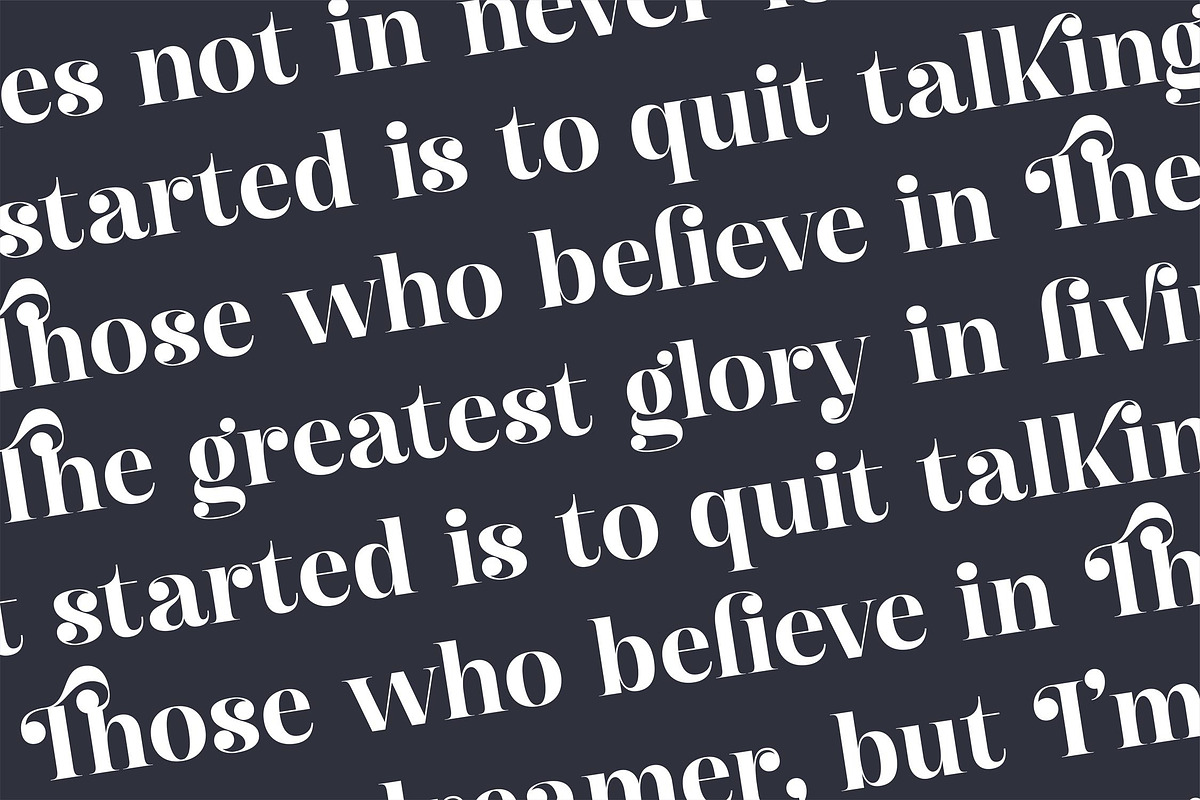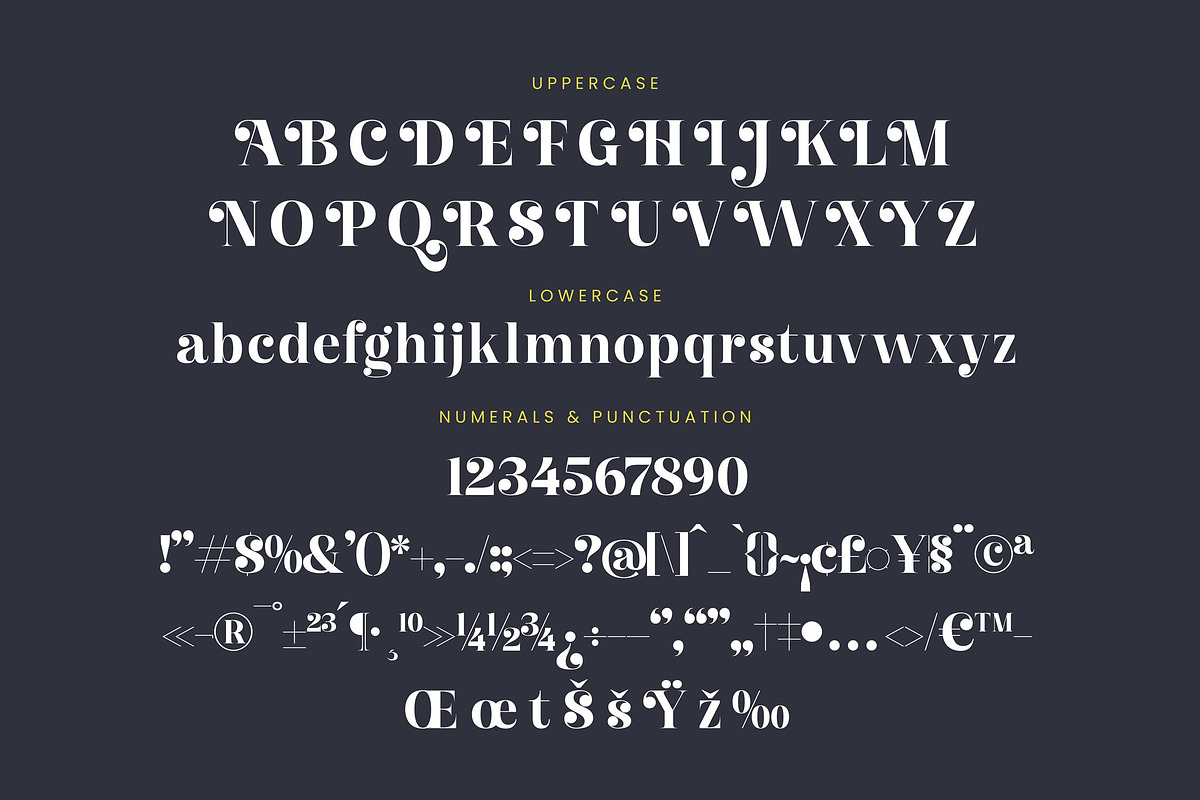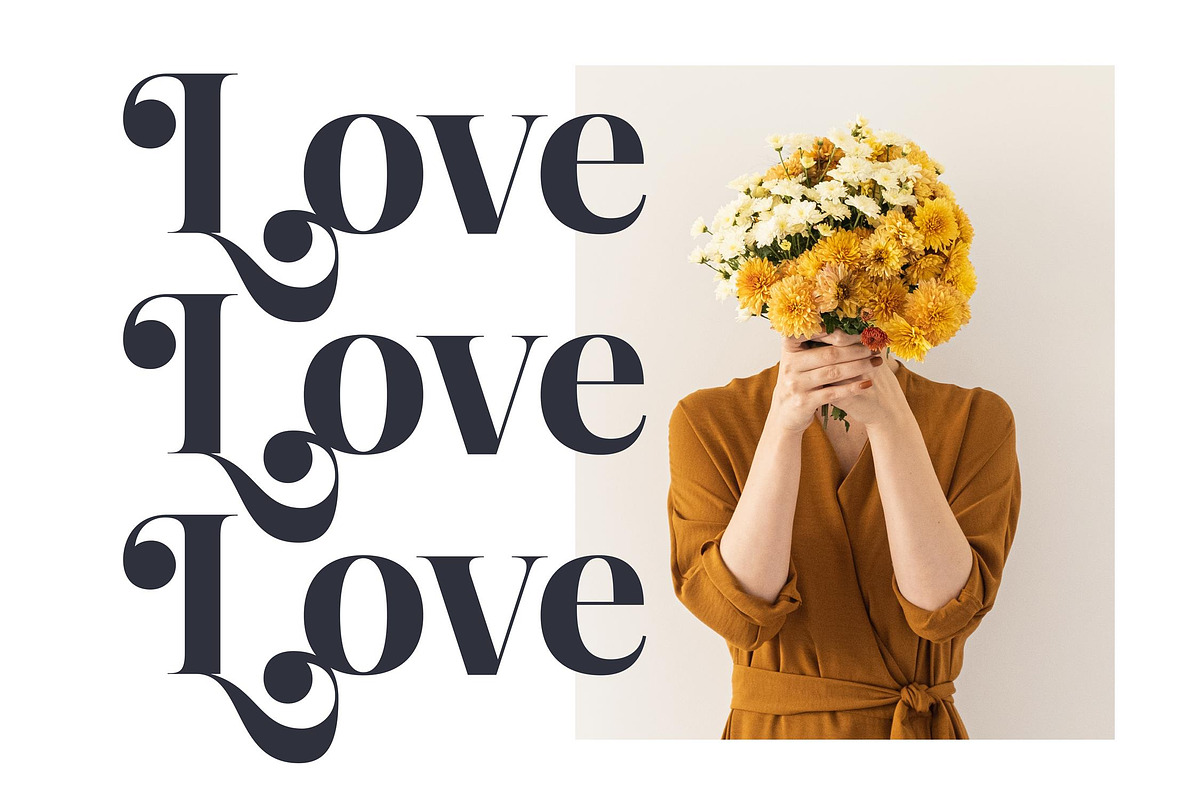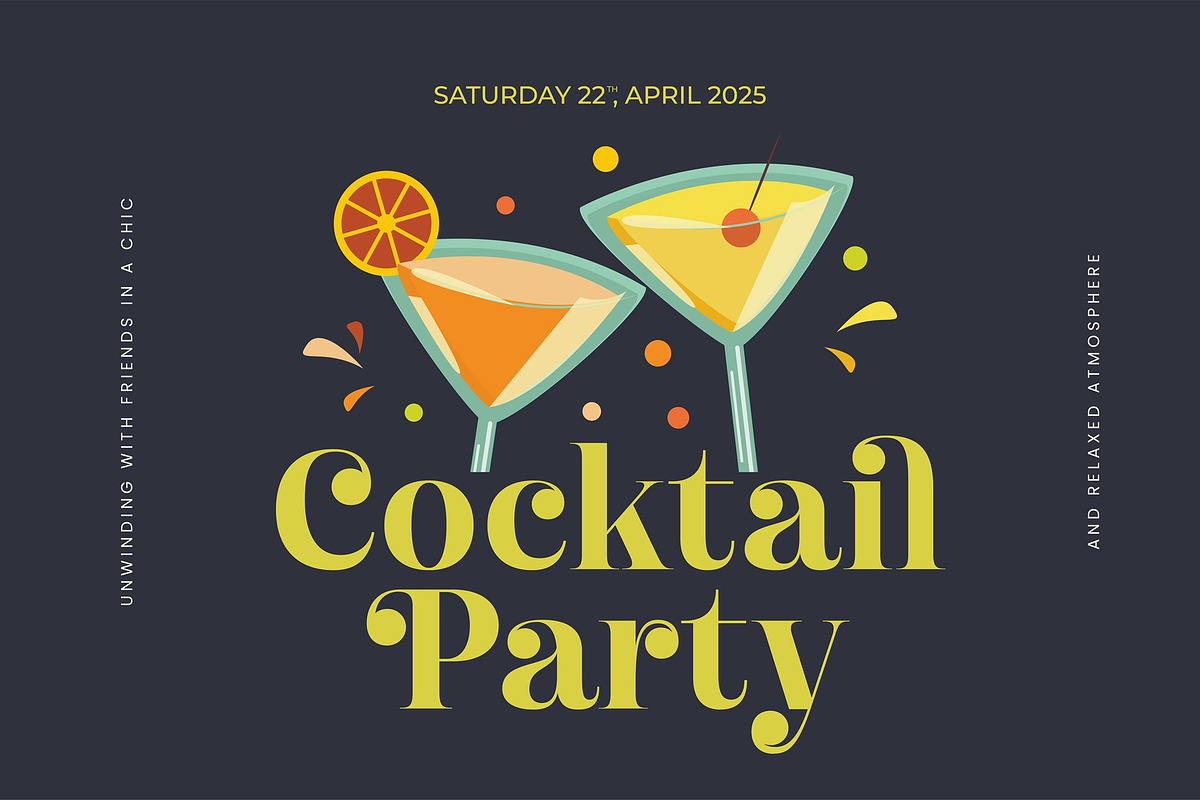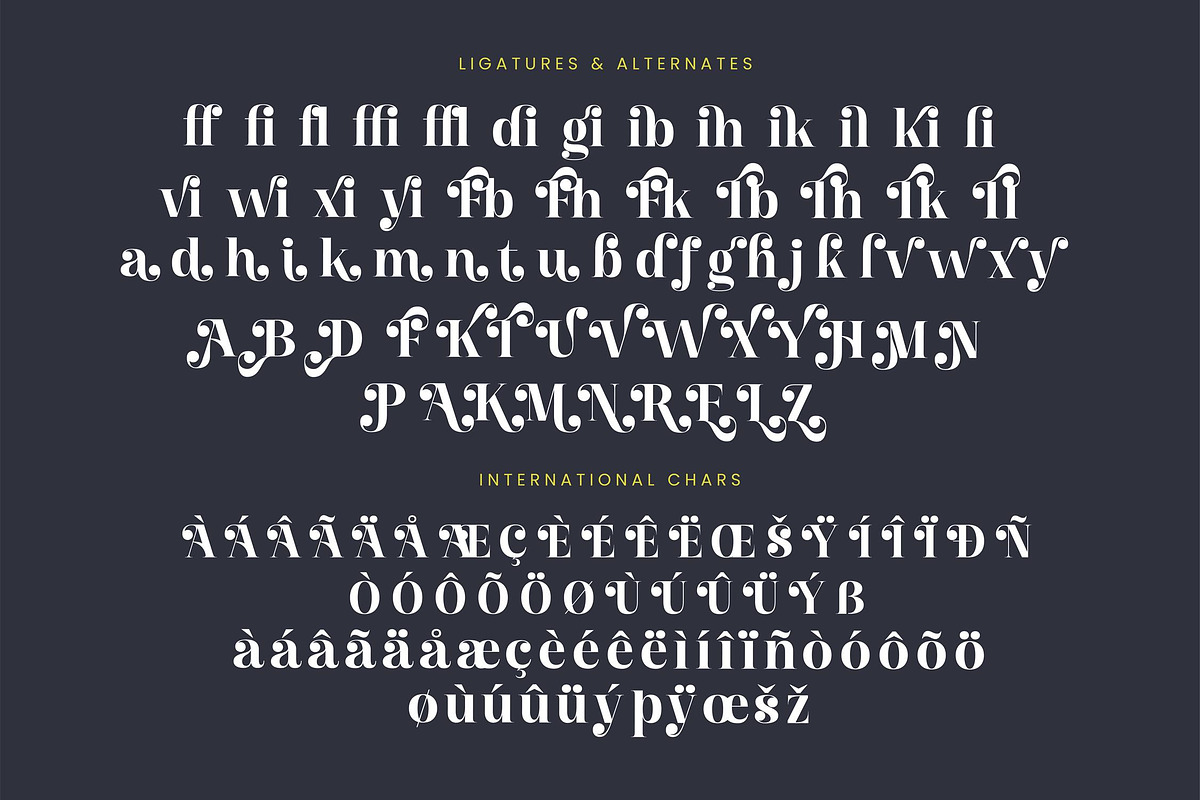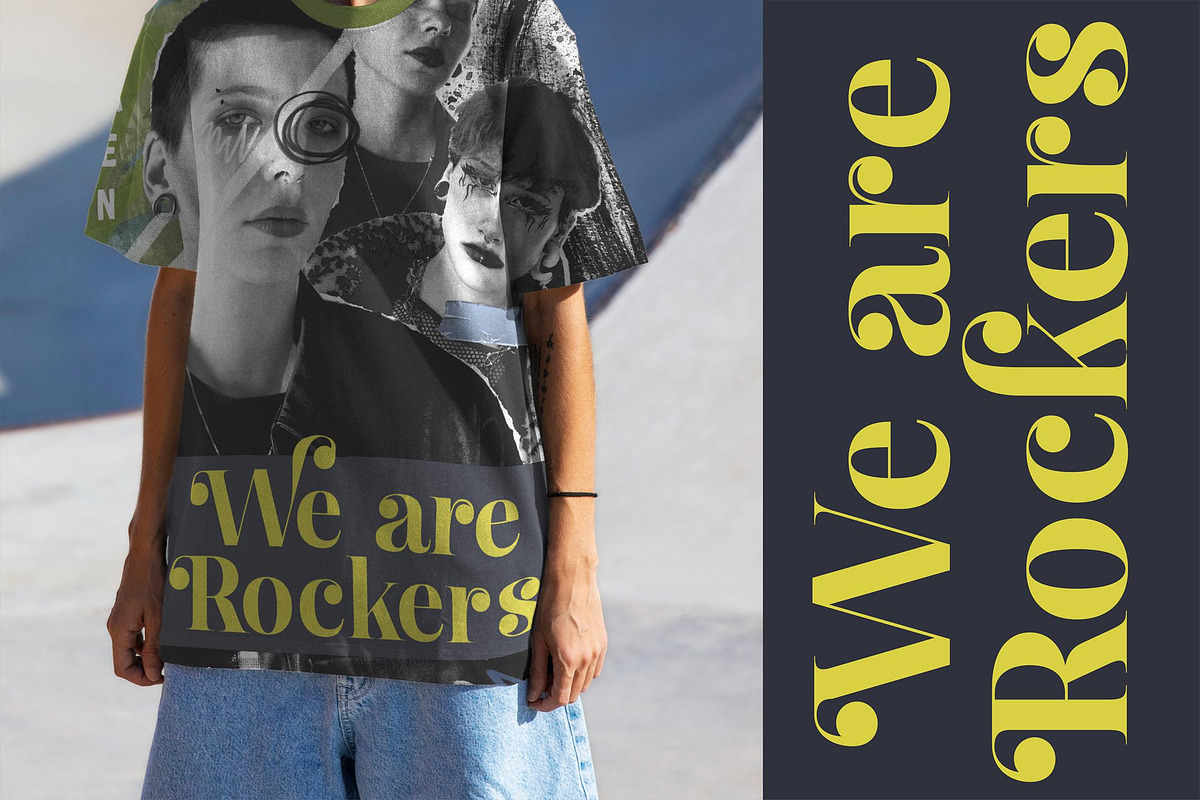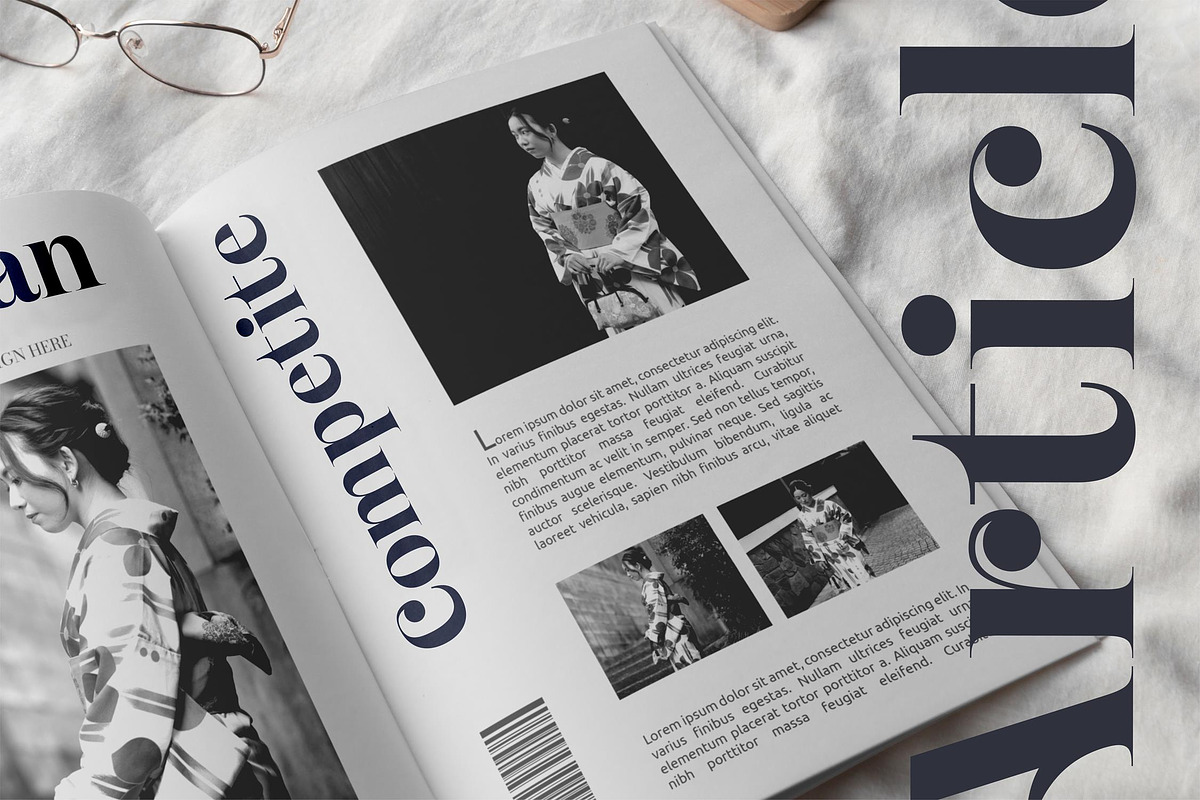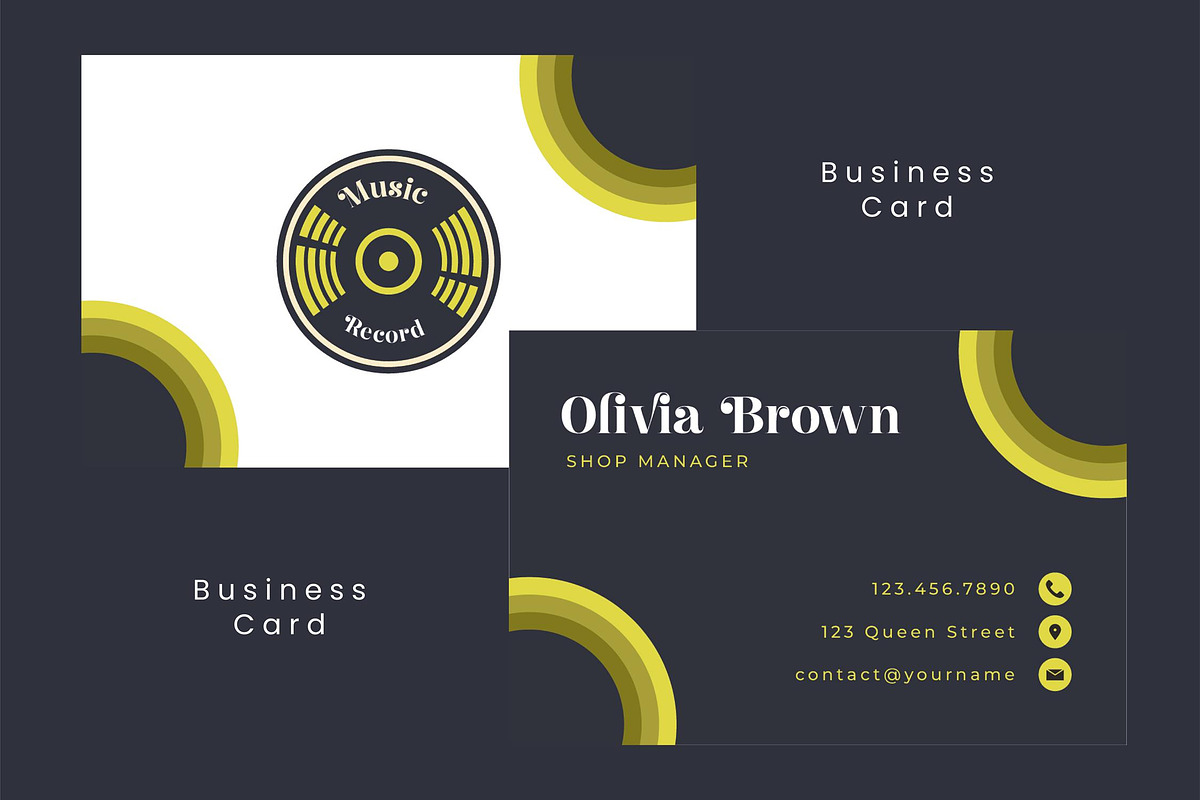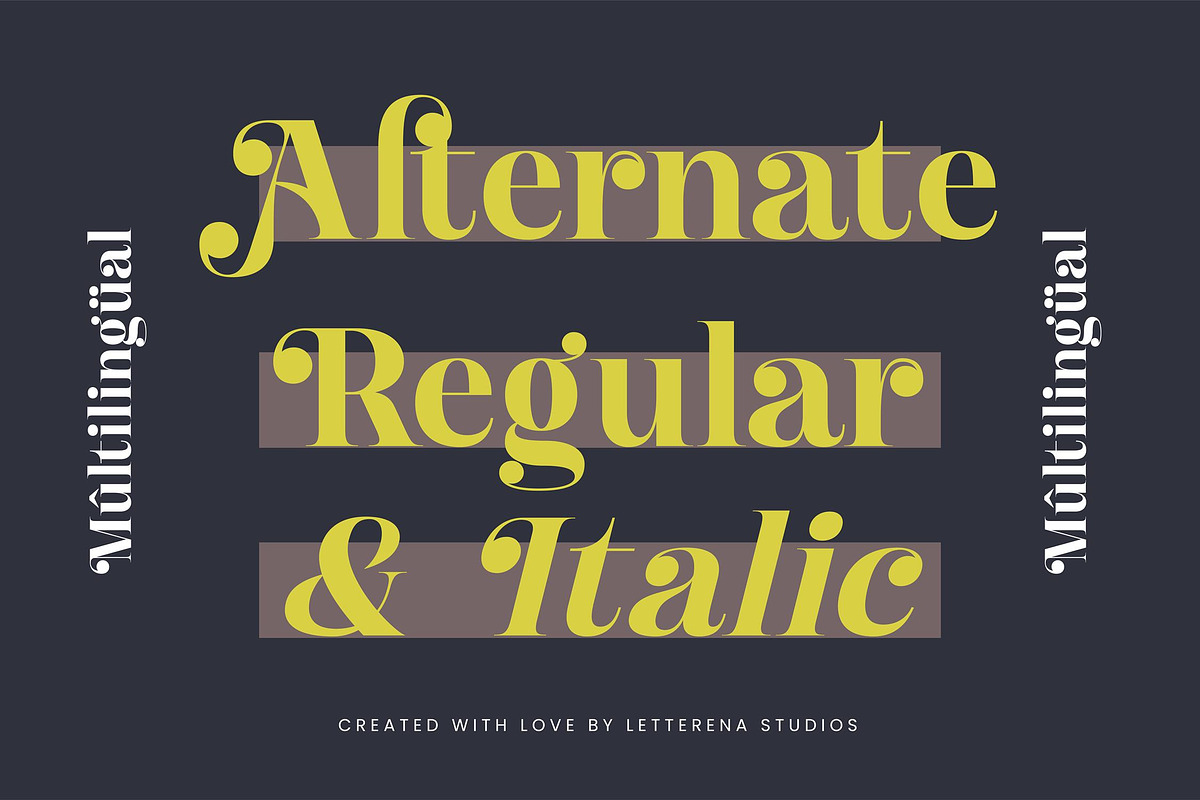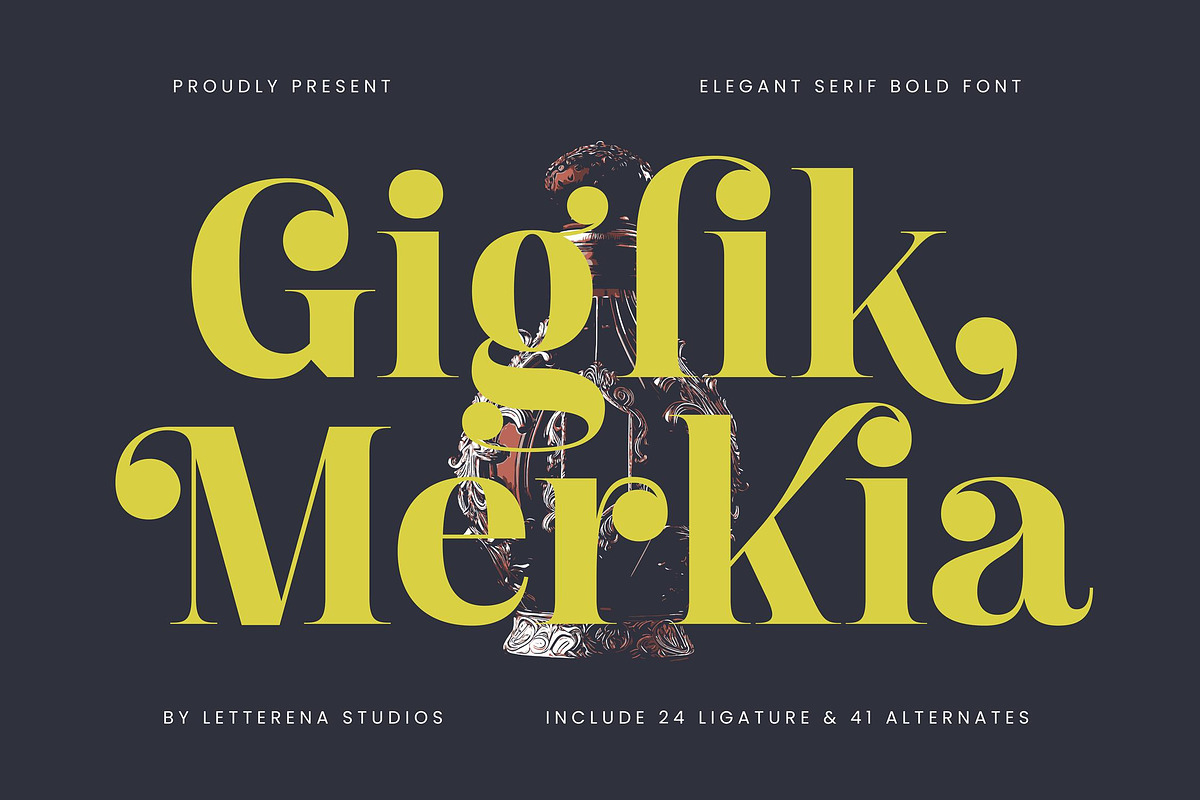
Giglik Merkia Elegant Serif Bold
Giglik Merkia - Elegant Serif Bold Font , from Letterena, is a Luxury Serif font, suitable for any projects such as: logos, branding projects, homeware designs, product packaging, mugs, quotes, posters, shopping bags, t-shirts, book covers, name card, invitation cards, greeting cards, label, photography, watermark, special events, and all your other luxury and beautiful projects that need a Luxury Serif taste.